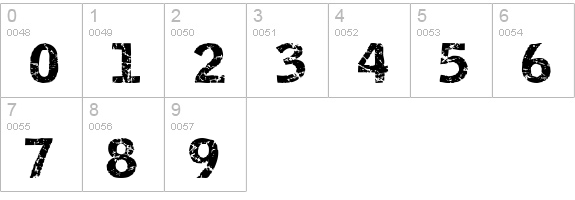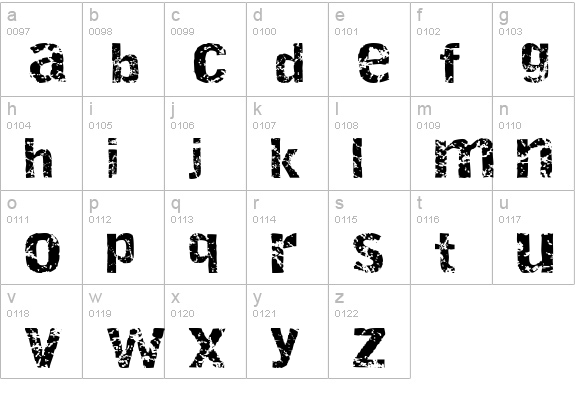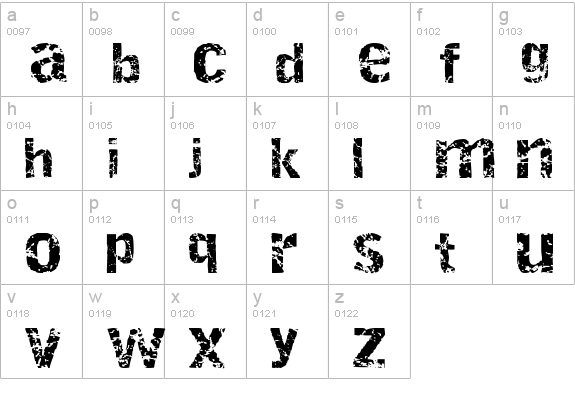
The Destroy font is a bold and striking typeface that exudes raw power and edgy appeal. Its rugged and distressed appearance gives any design a rebellious and intense vibe, making it perfect for projects that require a touch of defiance and attitude. This font is ideal for posters, album covers, apparel designs, and any creative project that calls for a bold statement. Best of all, the Destroy font is available for free download at FontsMarket.com. So, unleash your creativity and make a powerful impact with this impactful and dynamic font that is sure to grab attention and leave a lasting impression.